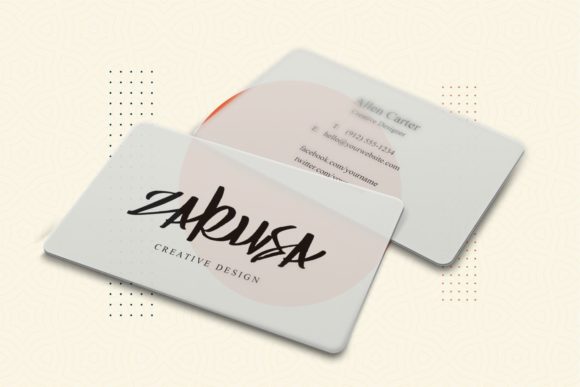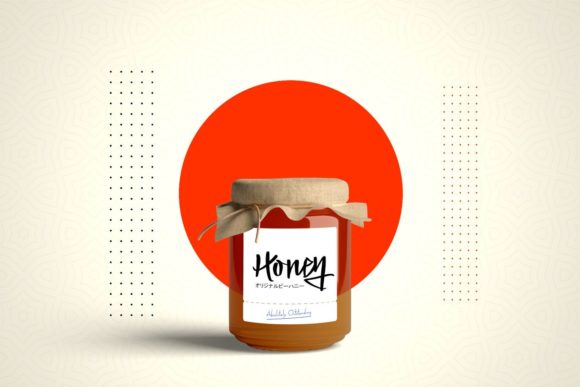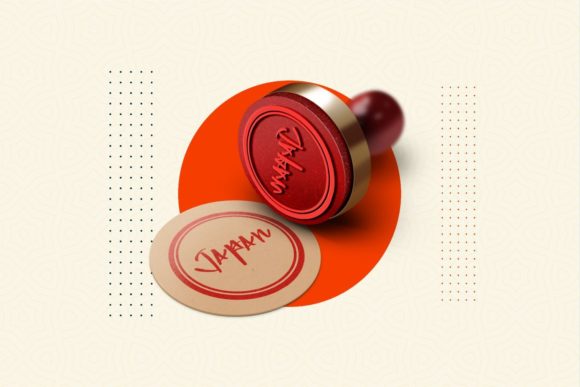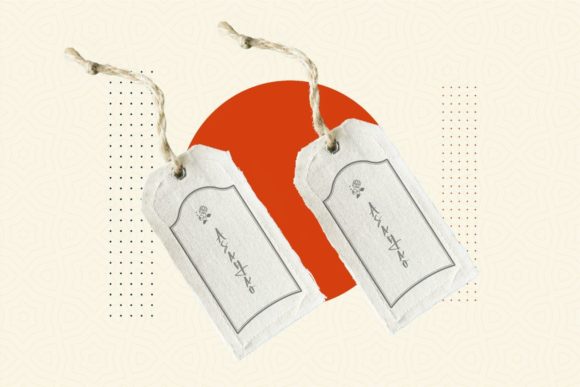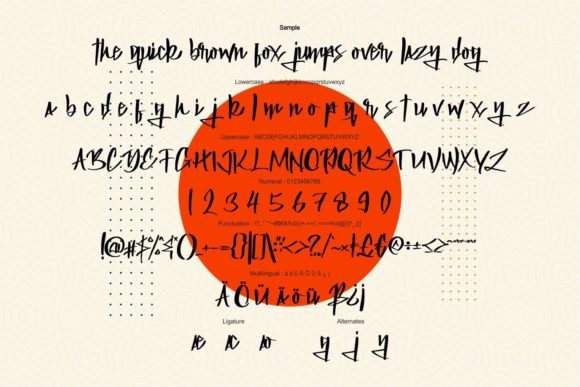
Unleashing Your Inner Artist: The Magic of Geisha Font
Have you ever been working on a design project, and then suddenly, the perfect font appears in your mind like a flash of inspiration? That’s exactly what happened to me when I stumbled upon Geisha Font. This modern, chic, and quirky display font has the power to transform any design into a work of art.
Geisha Font is a versatile tool that’s perfect for adding a touch of sophistication and whimsy to your Halloween crafts, horror movie posters, t-shirts, and anything else that requires a spectacular look. Whether you’re a seasoned designer or a creative enthusiast, Geisha Font is an invaluable asset that will elevate your designs to the next level.
Geisha Font Key Features
- Font Style: Geisha Font is a calligraphic script font with elegant and sophisticated design, making it suitable for various creative projects.
- Unique Characteristics: The font’s distinctive calligraphic style, with flowing lines and subtle flourishes, adds a touch of elegance and sophistication to any design.
Geisha Font Review
When I first laid eyes on the Geisha Font, I was immediately struck by its unique charm ✨. The font’s elegant, flowing curves and ornate details evoke the traditional Japanese art of ukiyo-e woodblock prints. It’s a truly distinctive and eye-catching design that can add a touch of sophistication to any project.
Some of the font’s strengths include its:
- Highly legible and readable text ✨
- Beautifully designed and ornate details ✨
- Perfect for use in projects that require a touch of elegance and sophistication ✨
- May be difficult to read at very small font sizes ⚠️
- Can be overwhelming or cluttered if used excessively ⚠️
- May not be suitable for projects that require a clean, minimalist look ⚠️
Overall, I would say that the Geisha Font is a great choice for designers who want to add a touch of elegance and sophistication to their projects. While it may have some limitations, its unique charm and beauty make it a standout choice for the right projects.
Tip: Use Geisha Font for titles and headings to add a touch of elegance to your design.
Tip: Use Geisha Font for headings and titles to add a touch of sophistication to your design.
Tip: Use Geisha Font for titles and headings to add a touch of elegance to your presentation or document.
Geisha Font is ideal for:
- Designing invitations and event materials.
- Creating luxury brand materials.
- Adding a touch
Alternatives to Geisha Font for Designers
1. Kaiti
Kaiti is a beautiful, elegant font often used for titles and headings. It has a similar Asian-inspired feel to Geisha Font but with a more refined and minimalist approach. Kaiti is ideal for designs that require a touch of sophistication and cultural sensitivity.
Comparison: While Geisha Font has a more playful and whimsical feel, Kaiti is more subdued and versatile.
2. Arita
Arita is a traditional Japanese font with a classic, timeless look. It’s often used for body text and has a more straightforward, readable feel compared to Geisha Font. Arita is suitable for designs that require a sense of tradition and cultural authenticity.
Comparison: Arita is more legible and practical than Geisha Font, but lacks its distinctive flair.
3. Sakura Maru
Sakura Maru is a modern Japanese font with a strong, geometric feel. It’s often used for titles and headings and has a more contemporary, edgy look compared to Geisha Font. Sakura Maru is ideal for designs that require a bold, eye-catching statement.
Q: What is the character set and language support for Geisha Font?
Geisha Font includes a comprehensive character set, covering Latin, Cyrillic, and Greek alphabets, as well as a range of punctuation and symbol characters. It also supports a wide range of languages, including English, Spanish, French, German, Italian, Portuguese, and many others. For a full list of supported languages, please refer to the font’s documentation.